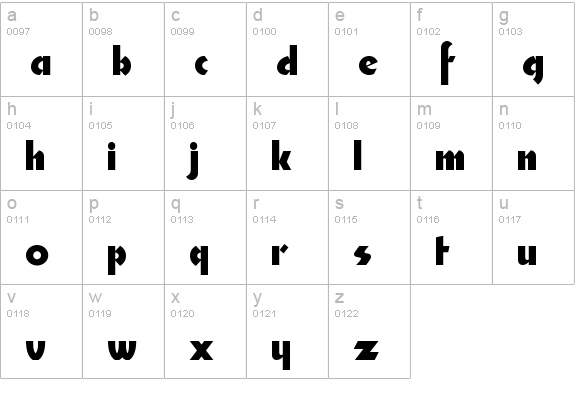
DeRigueurNF Font Details
DeRigueurNF font exudes elegance and sophistication with its sleek lines and timeless appeal. This modern yet classic typeface is perfect for adding a touch of refinement to any project, whether it be a wedding invitation, logo design, or editorial layout. The clean, well-balanced letterforms of DeRigueurNF make it a versatile choice for various design applications. Its graceful curves and sharp angles create a harmonious balance that is both eye-catching and easy to read. What's even better is that DeRigueurNF font is available for free download at FontsMarket.com. This means you can elevate your design projects without breaking the bank. Don't miss out on this opportunity to add a touch of sophistication to your work with the elegant DeRigueurNF font. Download it today and watch your designs come to life with style and grace.